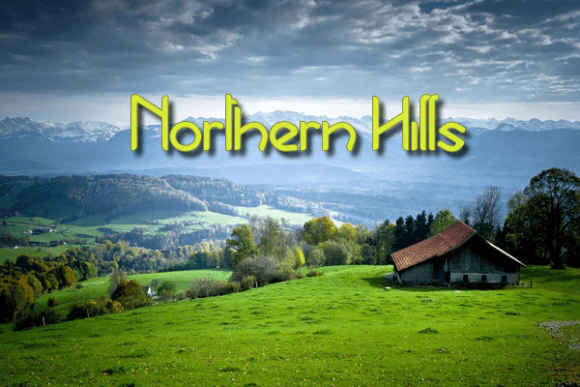
Discover the Elegance of Hebe Font: A Modern Sans Serif Marvel
In the realm of typography, few fonts manage to strike a balance between simplicity and sophistication as effortlessly as Hebe. This impeccably designed sans serif font, crafted by the illustrious designer Alberto Villanueva, has emerged as a beacon of modern style and elegance. Hebe is not just a font; it’s an experience that elevates your digital design to unprecedented heights of refinement and contemporary appeal.
The Genesis of Hebe: A Story of Precision and Passion
Alberto Villanueva, a name synonymous with exceptional design, poured his heart and soul into creating Hebe. This font is a testament to his stellar craftsmanship and an unwavering commitment to excellence. Villanueva’s vision for Hebe was to create a typeface that embodies the essence of modernity while retaining an air of sophistication. The result is a font that is not only visually stunning but also incredibly versatile.
Key Features of Hebe Font
- Clean and Modern Design: Hebe’s sans serif design is characterized by its clean lines and modern aesthetic. This makes it perfect for designers looking for a font that can add a touch of elegance to their projects.
- Precision Craftsmanship: Every detail in Hebe has been meticulously tailored. From the spacing between letters to the curves of each character, Villanueva’s precision is evident throughout, making Hebe a standout in the world of typography.
Why Choose Hebe for Your Design Projects?
For creators and designers, the quest for the perfect font can be endless. However, Hebe offers a compelling reason to stop searching. Its unique blend of simplicity and sophistication makes it an indispensable resource for anyone looking to add a sleek, modern touch to their projects. Whether you’re working on a website, a branding project, or marketing materials, Hebe can elevate your design, making it more engaging and visually appealing.
Applications of Hebe Font
The versatility of Hebe makes it suitable for a wide range of applications. Here are a few ideas to get you started:
- Web Design: Use Hebe to give your website a modern and clean look. Its web-friendly features ensure that it will look great on all devices.
- Branding and Logos: The elegance of Hebe makes it perfect for branding projects and logos that require a touch of sophistication.
- Marketing Materials: From brochures to flyers, Hebe can add a contemporary flair to your marketing materials, making them stand out.
- Mobile Apps: Hebe’s clear and readable design makes it an excellent choice for mobile app interfaces.
| Font Name | Hebe Font |
| Author | Wakoletras |
Hebe font, designed by Alberto Villanueva, is more than just a typeface; it’s a design statement. Its clean and modern sans serif design, coupled with web-friendly features and vector formats, makes it an invaluable asset for designers and crafters. Hebe doesn’t just offer a way to make your text look good; it offers a way to make your design unforgettable. Dive into the world of clean and modern typography with Hebe and discover a new level of elegance and sophistication in your digital designs.